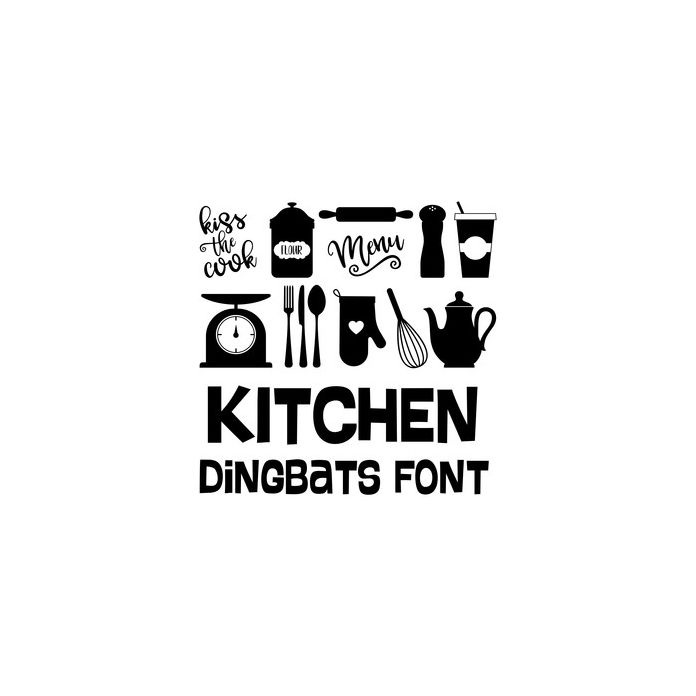
kitchen dingbats font
This cute dingbat font includes 26 kitchen icons that you can type + cut. Make adorable kitchen themed projects with this fun font.